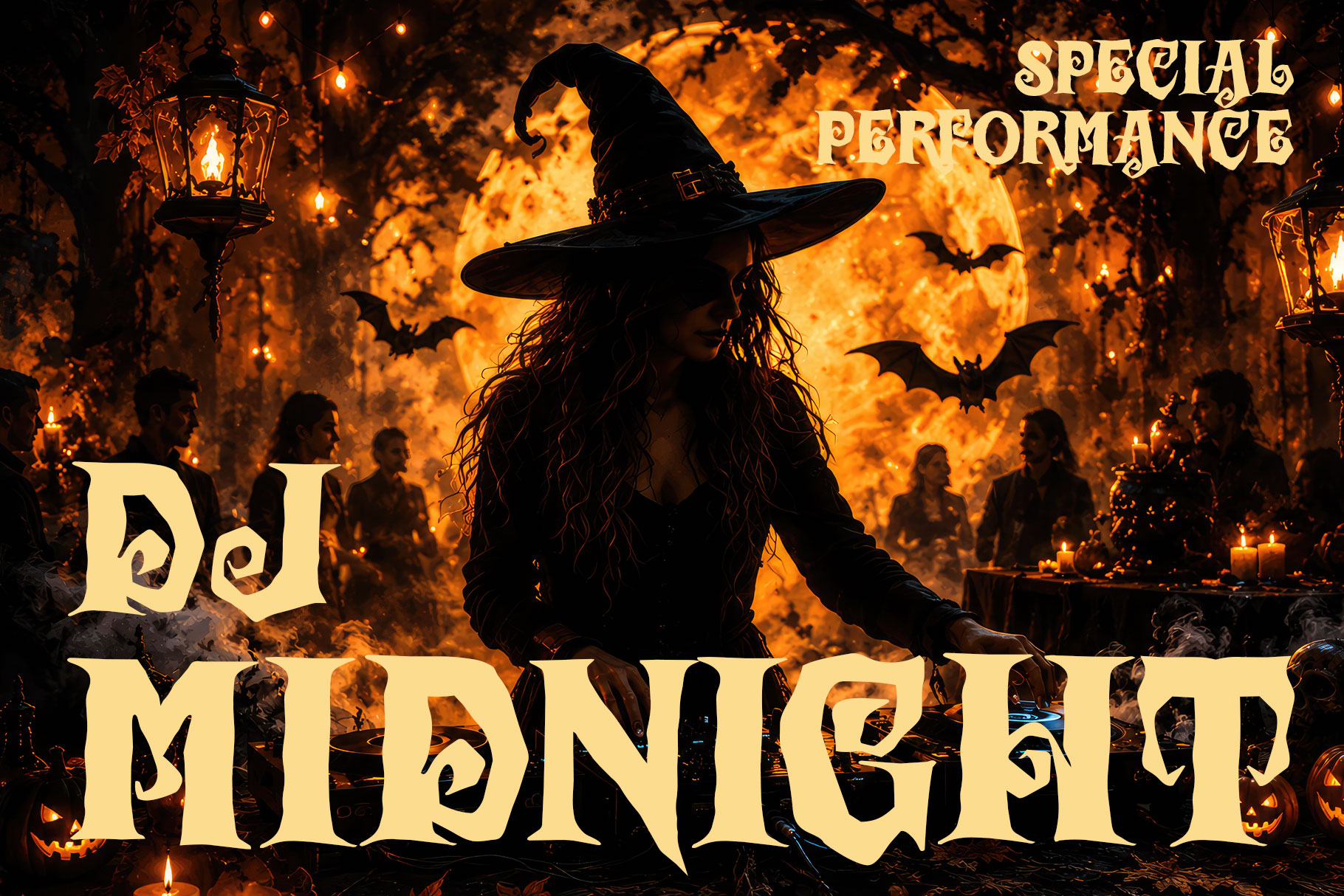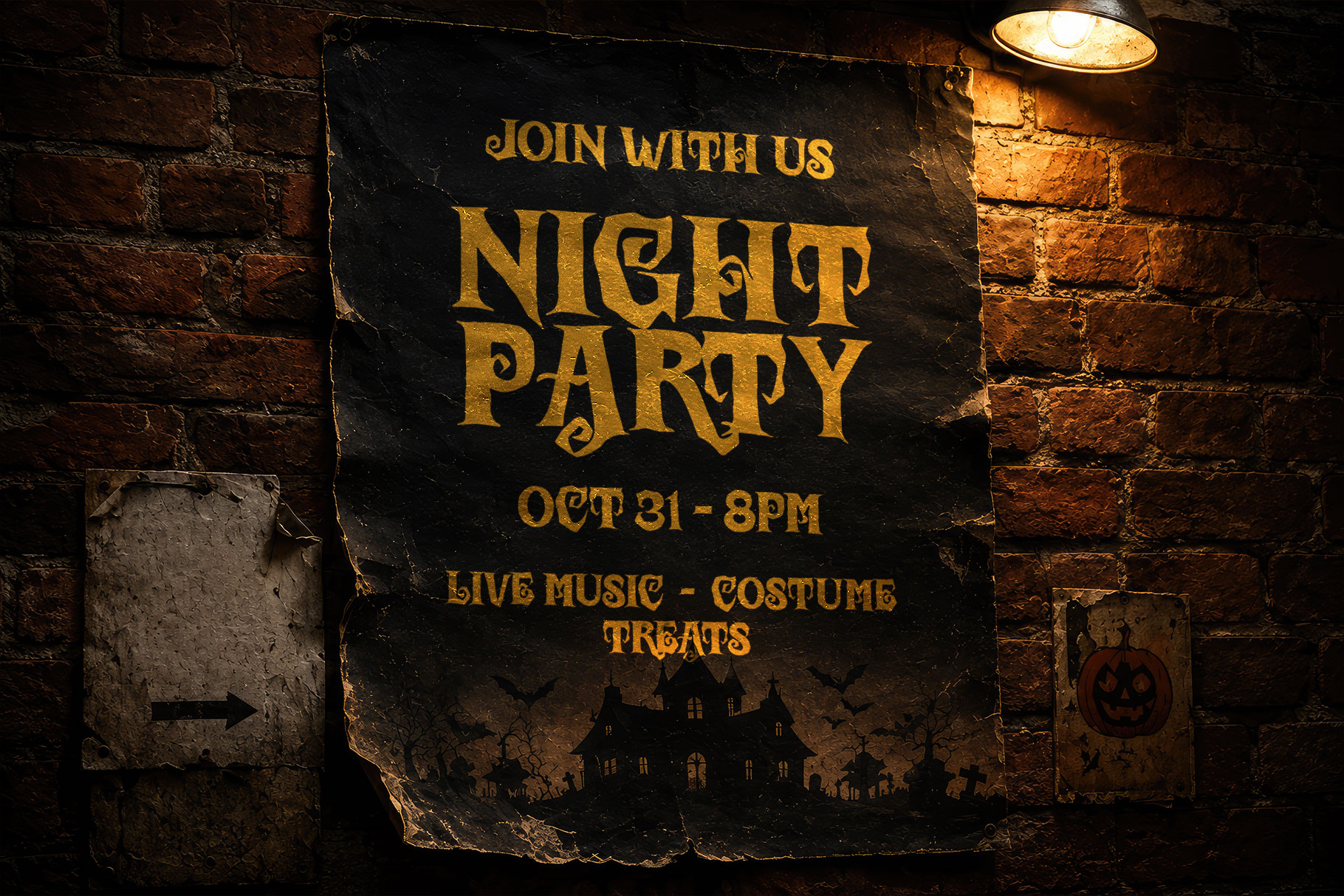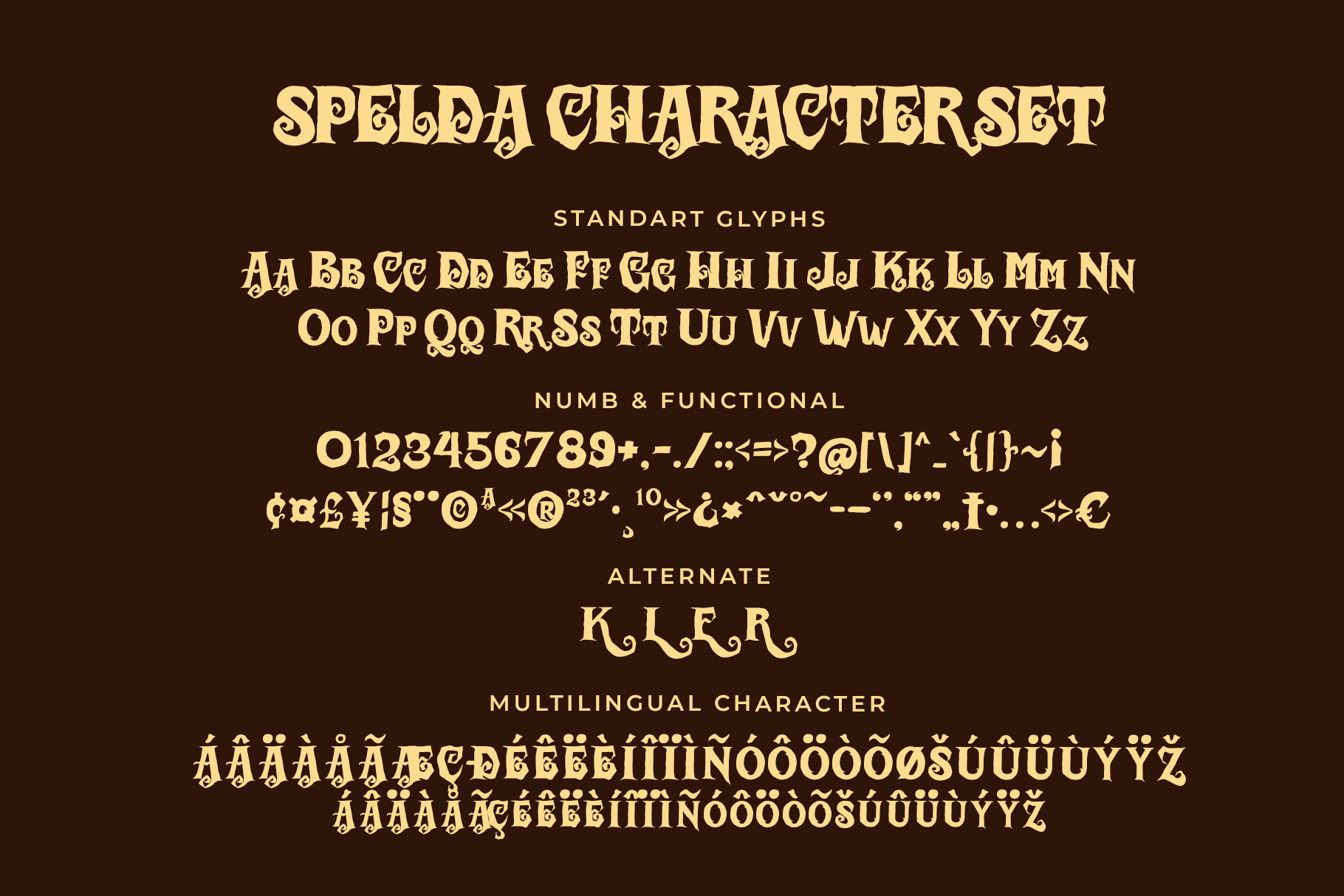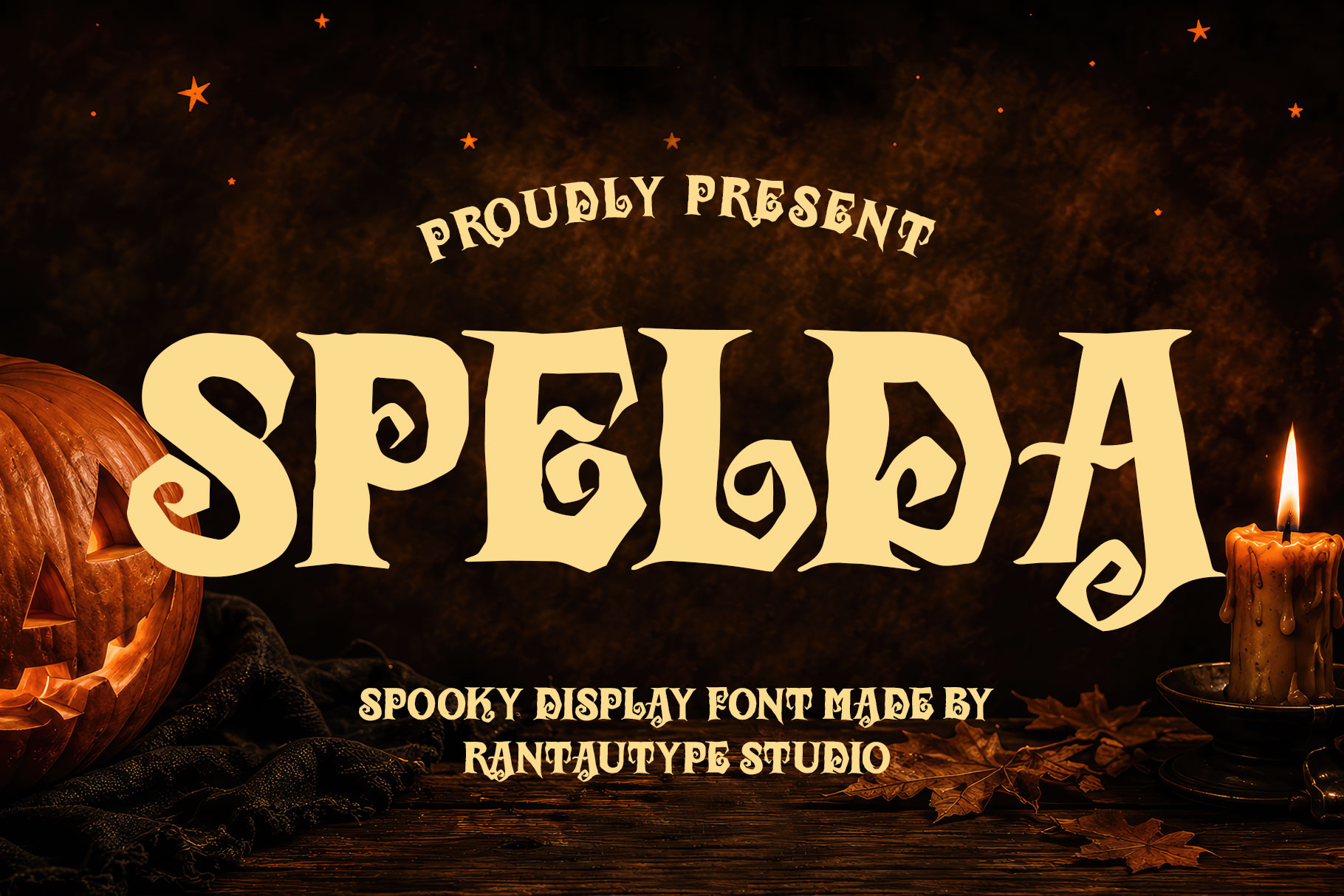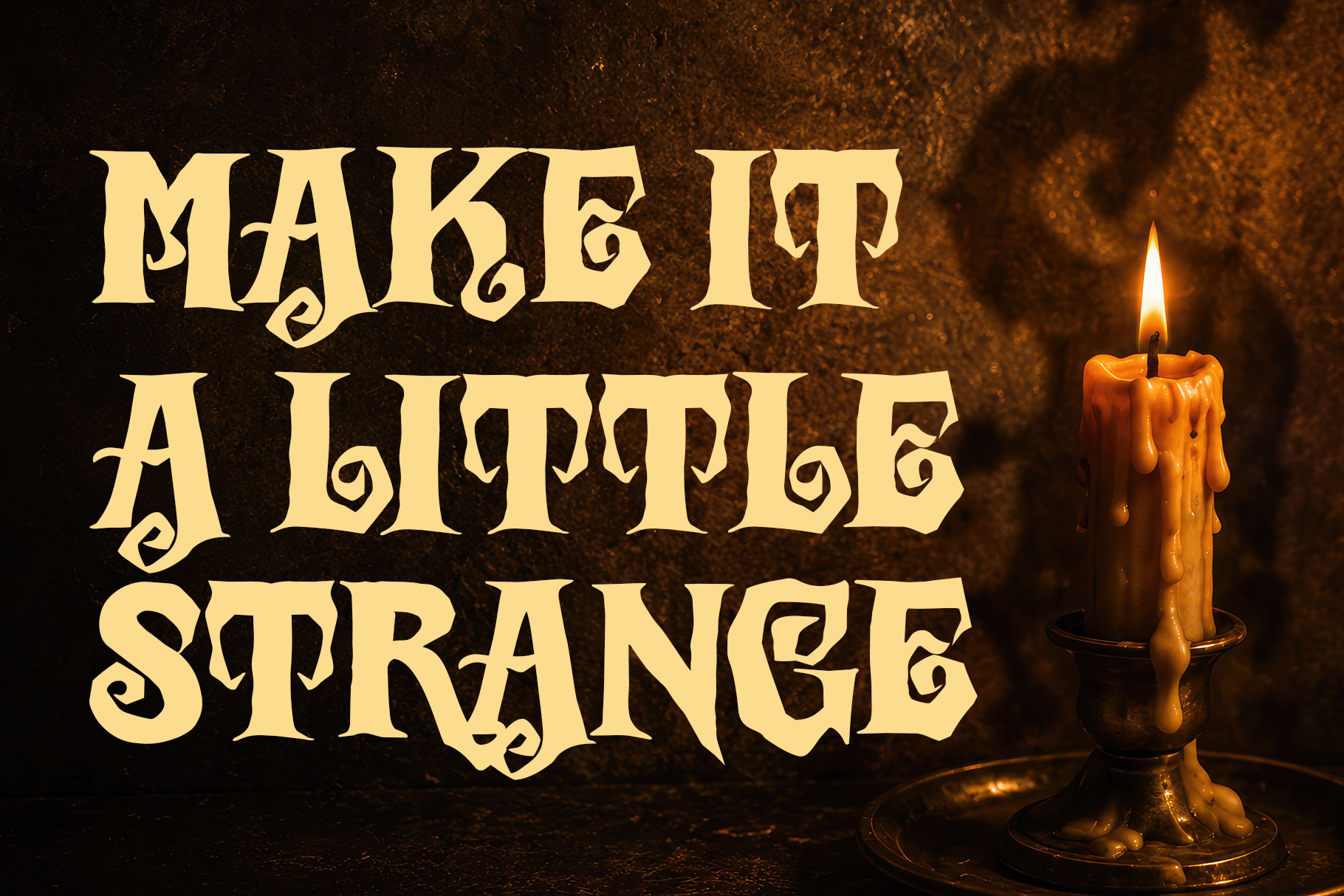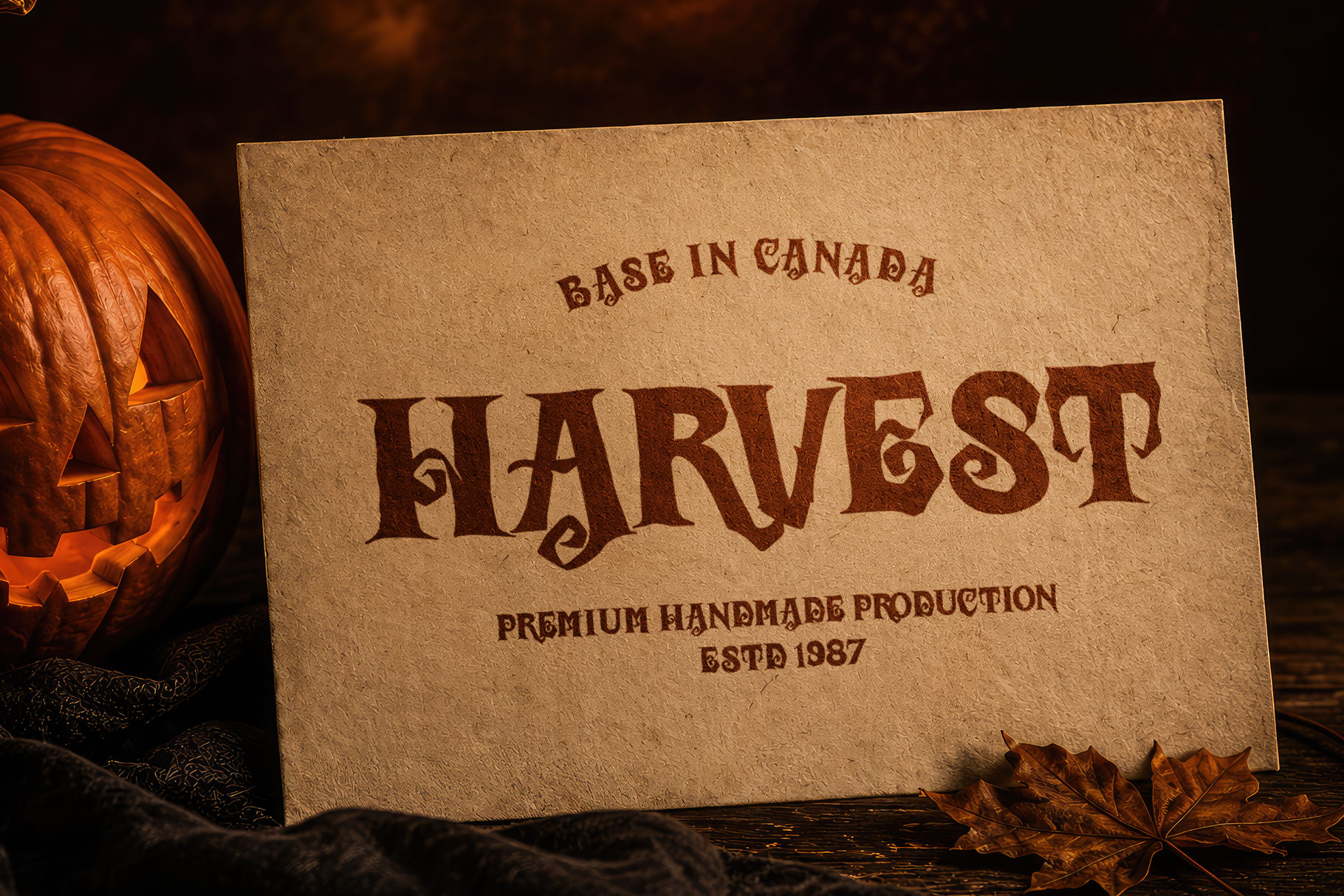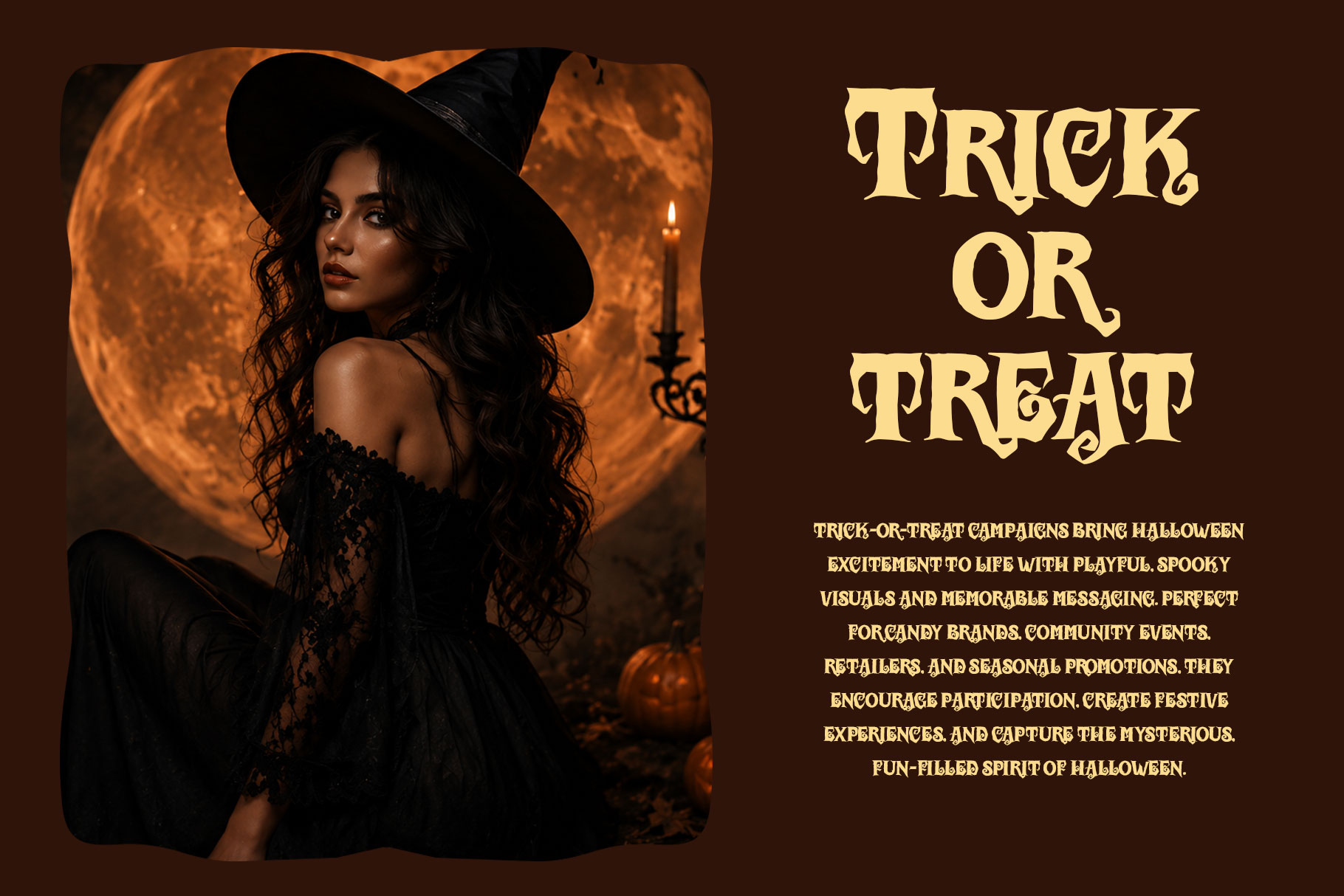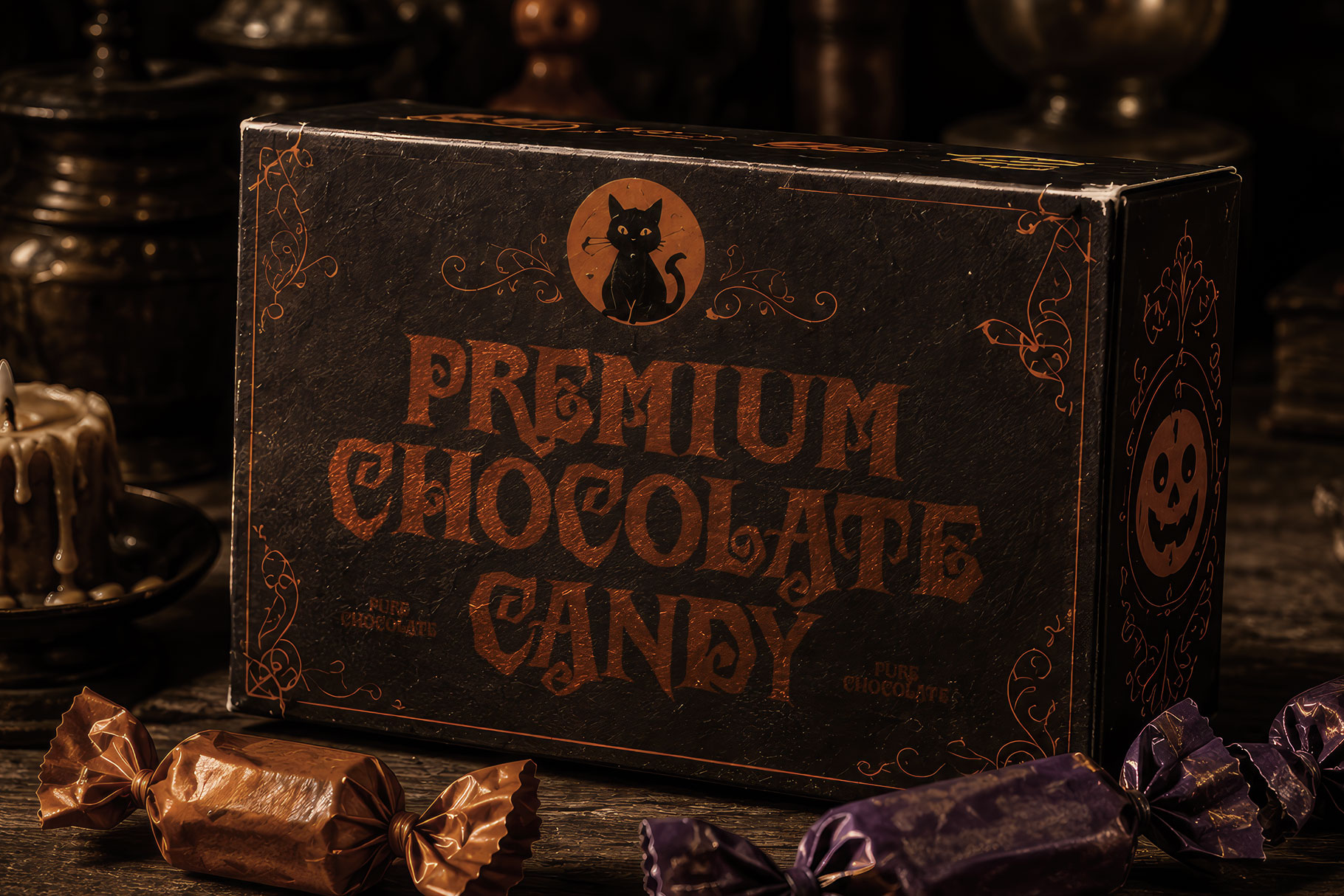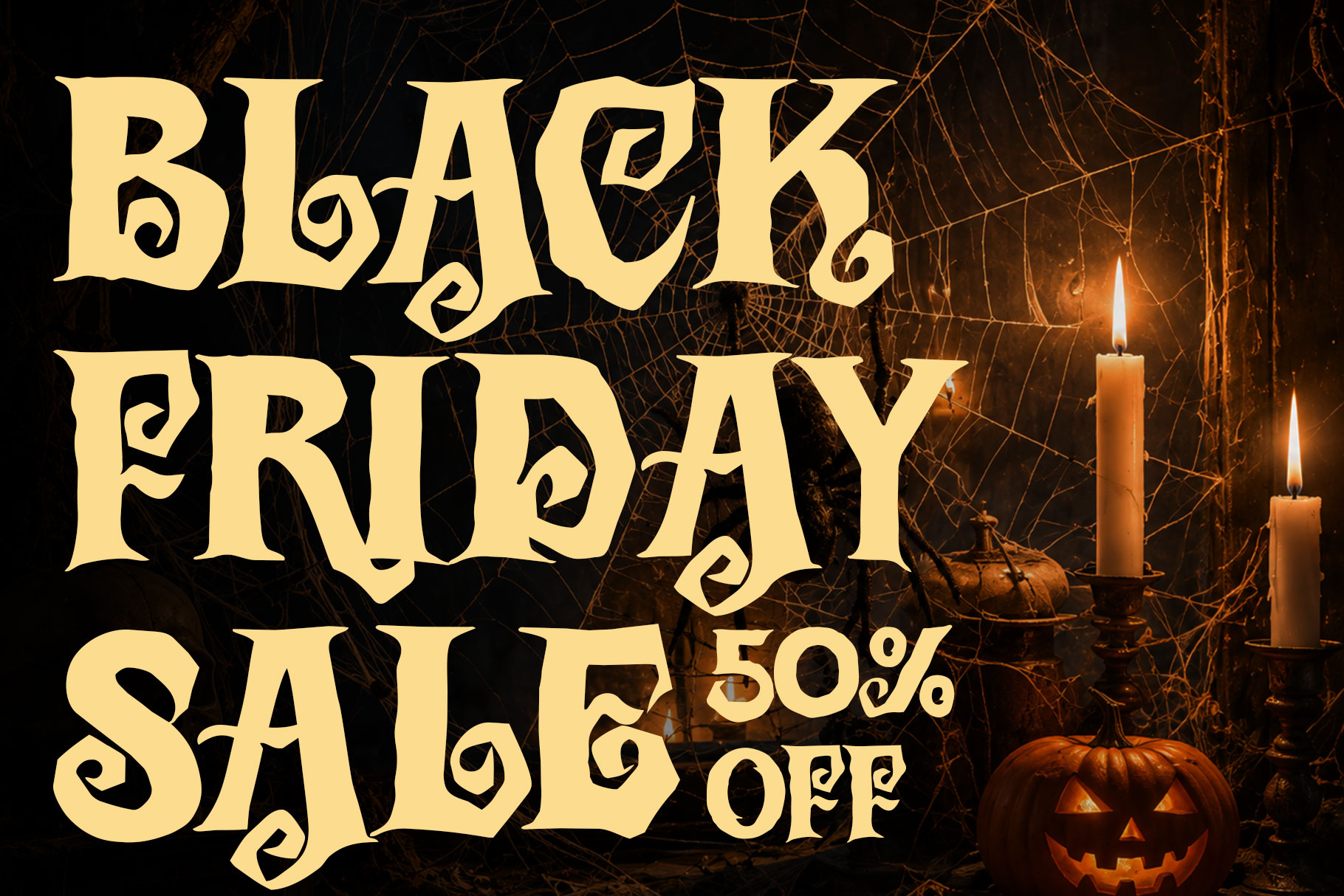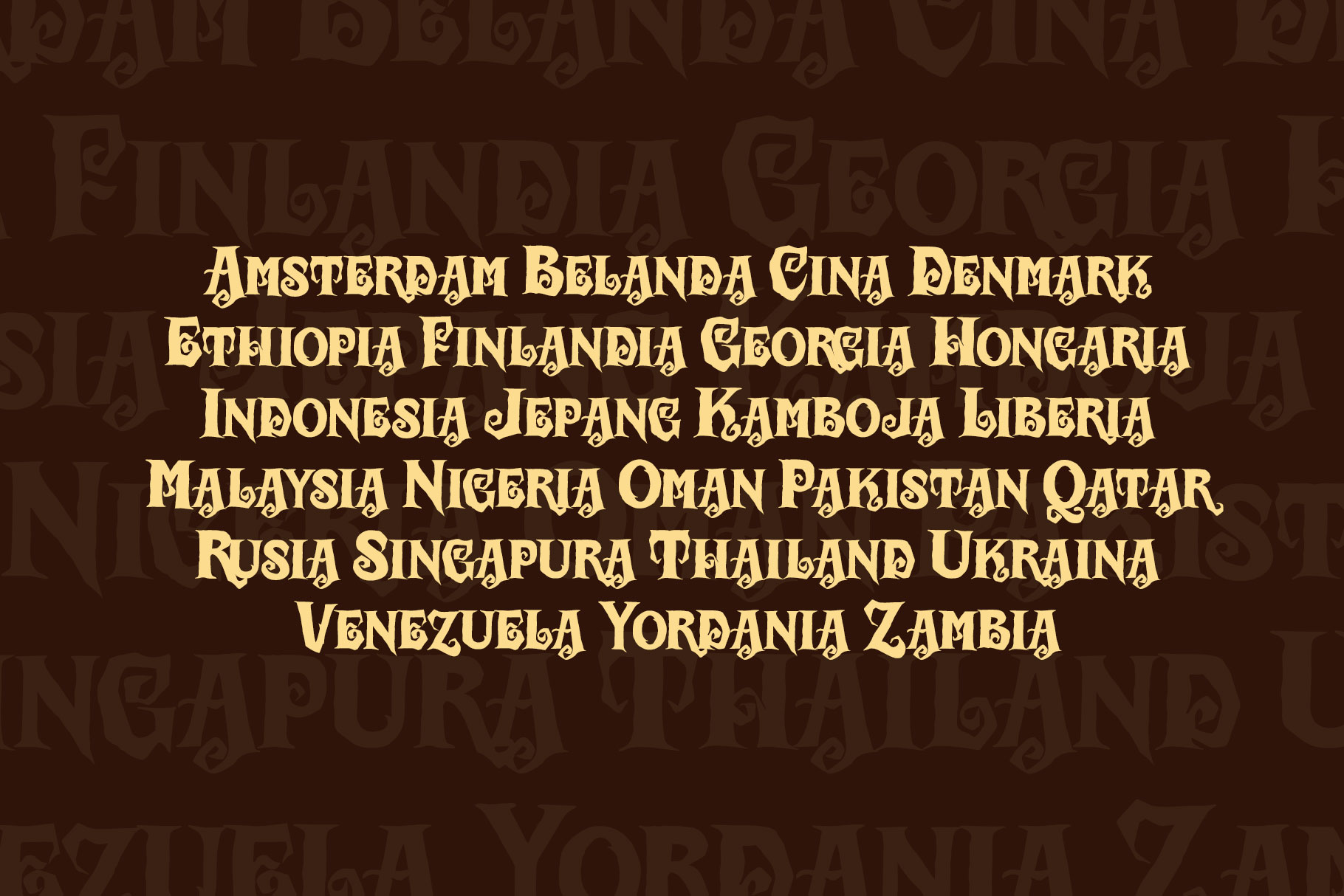
Spelda is spooky display font brings a playful twist to classic Halloween lettering, combining eerie character with an unmistakably handcrafted personality.
Spelda is a perfectly choice for any creative endeavor, creating, modern, lifestyle design such as logotype, title, cover, branding, invitations, social media posts, advertisements, printed quotes, product packaging, corporate brand, product designs, labels, watermarks, special events and any other project with playful touch.
Spelda Spooky Fun Display Font